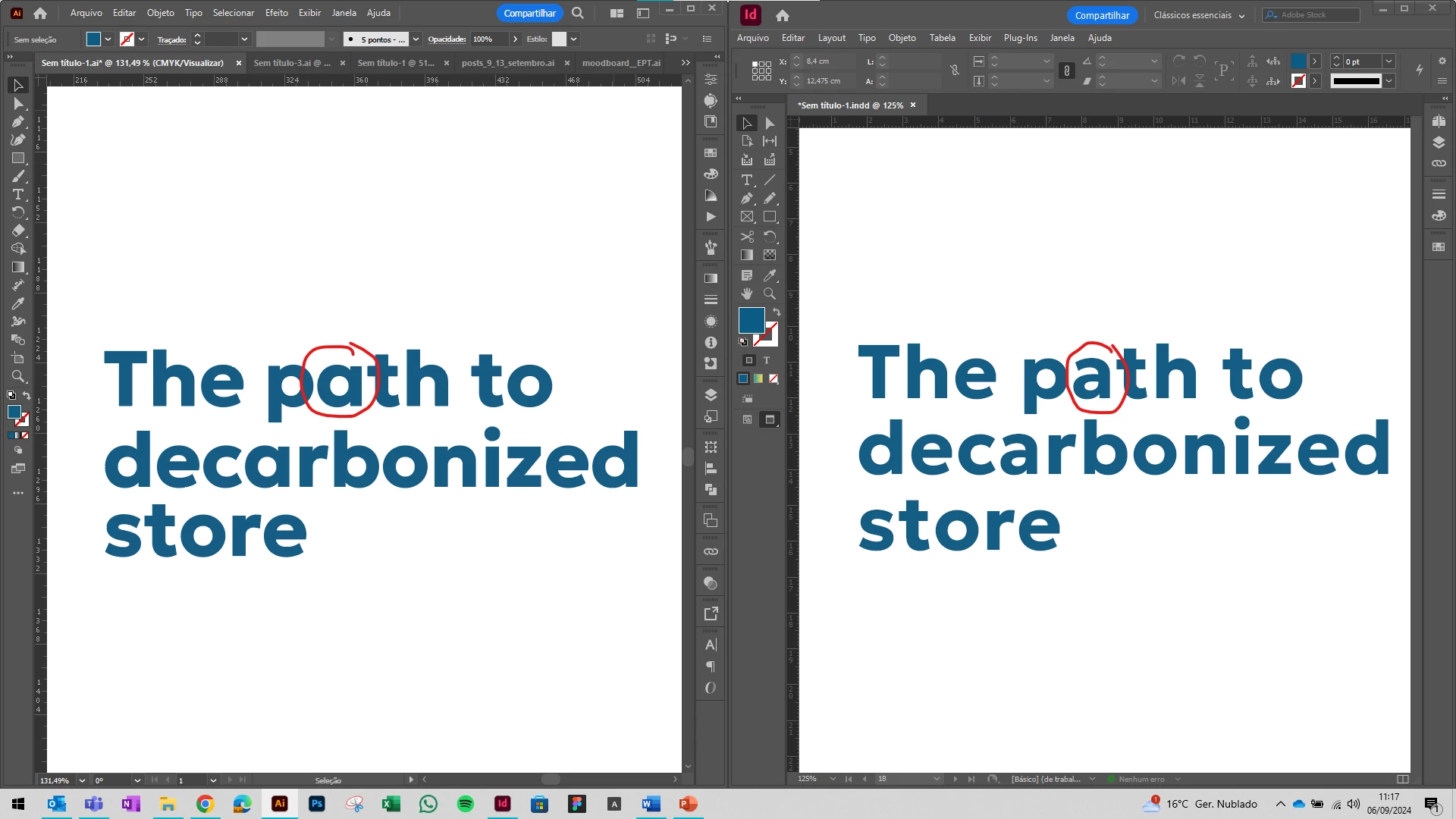
Same font displays the letter "a" differently in illustrator and in inDesign
I have a problem with the font "Geologica".
The design of the letter "a" is displayed correctly in InDesign but in Illustrator the same font displays the same letter differently.
I've checked multiple softwares, and in Ms Word the font also is displayed incorrectly.
I've attached an image so you can see the problem.
Has this happened with any of you? Do you know what the problem is?
This is weird because it's my company's brand font and something is not right with it.